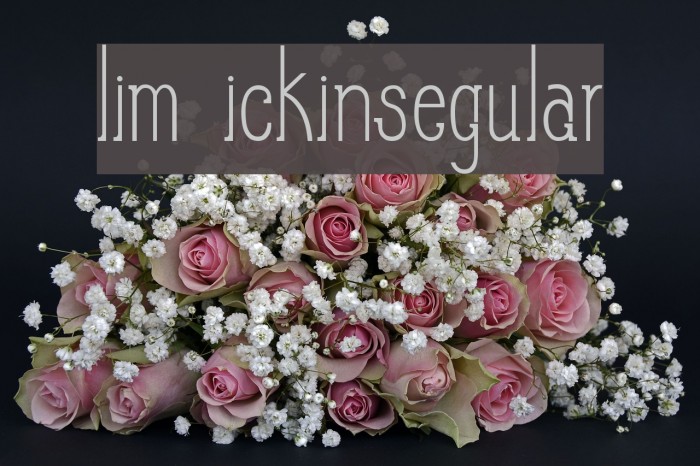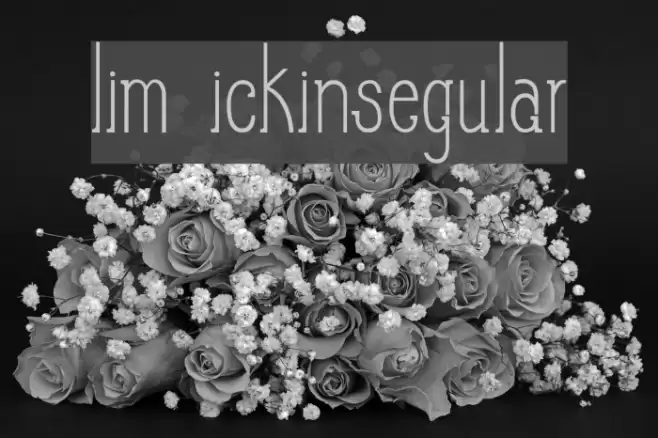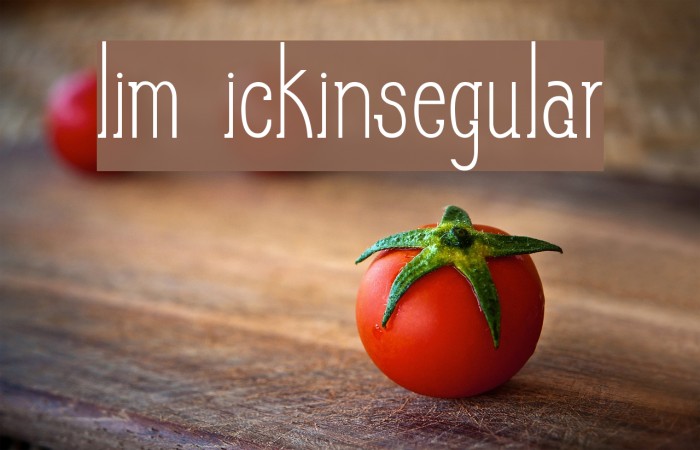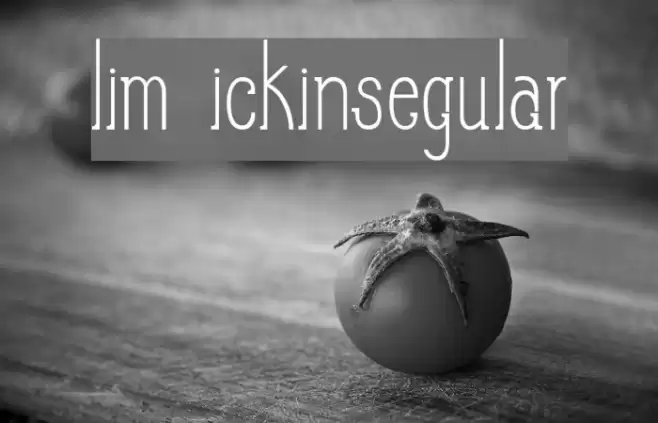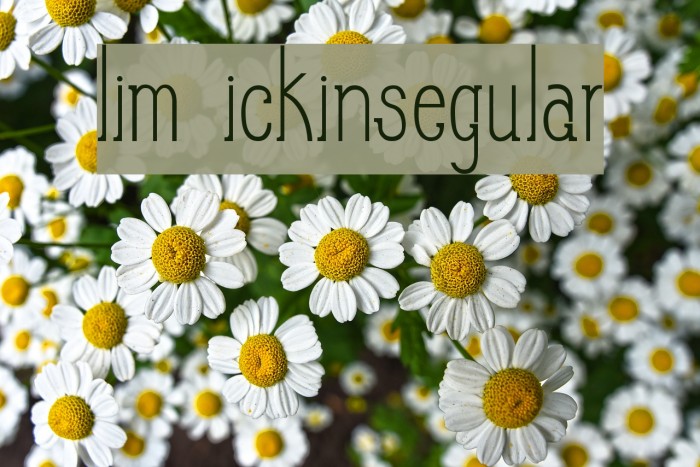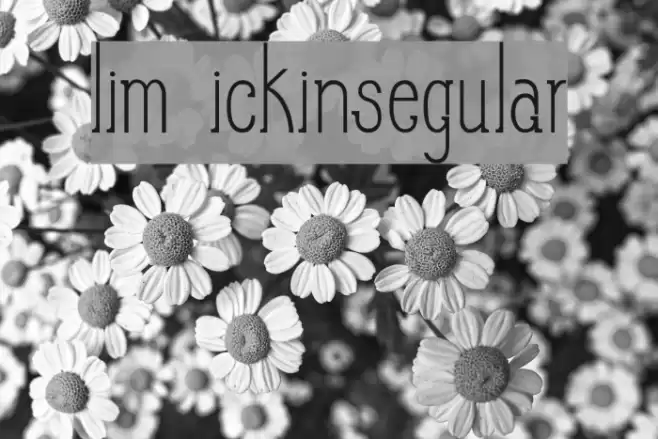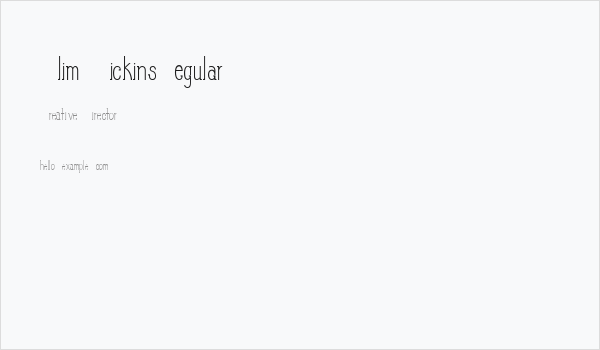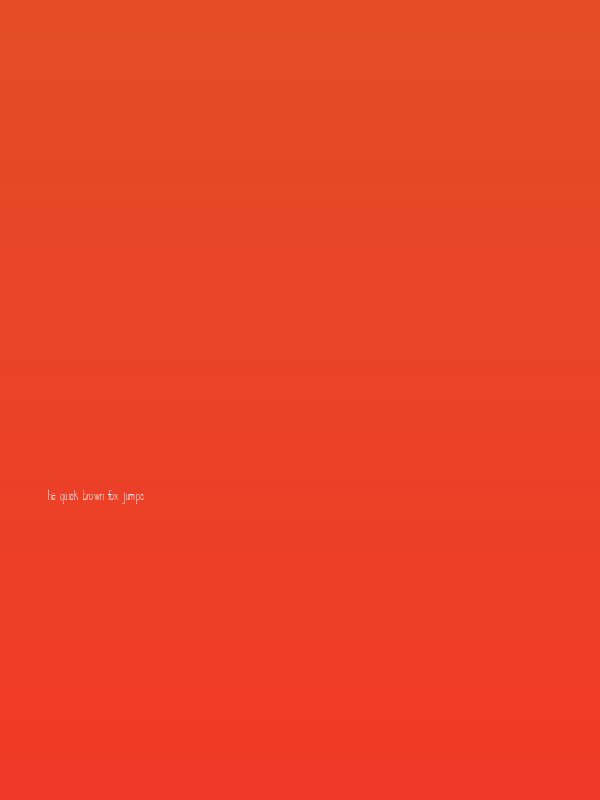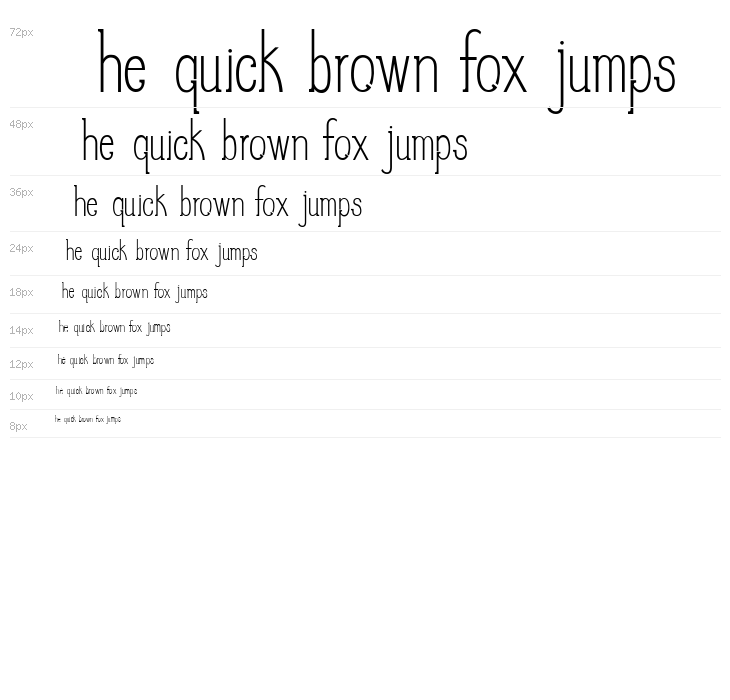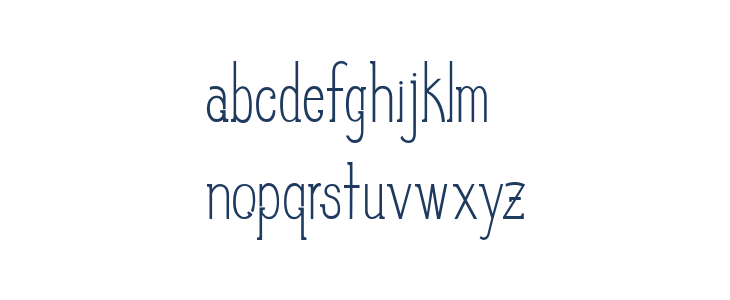
Slim PickinsRegular Font
Slim PickinsRegular Description
This font features a sleek and minimalist design, characterized by its thin, elongated letterforms that convey a sense of elegance and modernity. The characters are evenly spaced, providing a clean and airy appearance. The font's simplicity makes it versatile for various design applications, while its unique style adds a touch of sophistication. The lowercase letters have a consistent height, contributing to a harmonious and balanced look. The overall aesthetic is both contemporary and timeless, making it suitable for a wide range of creative projects.
Use CaseHeadlines, Body text, Logos
Proposed ProjectsIdeal for modern branding, editorial design, fashion magazines, and minimalist websites.